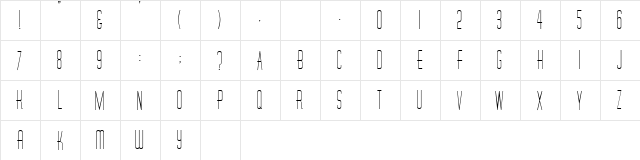
DinerRegular Regular
Design Context for DinerRegular Typeface
DinerRegular offers clean, dependable letterforms without strong stylistic allegiance, making it a practical choice for designers who need flexibility.